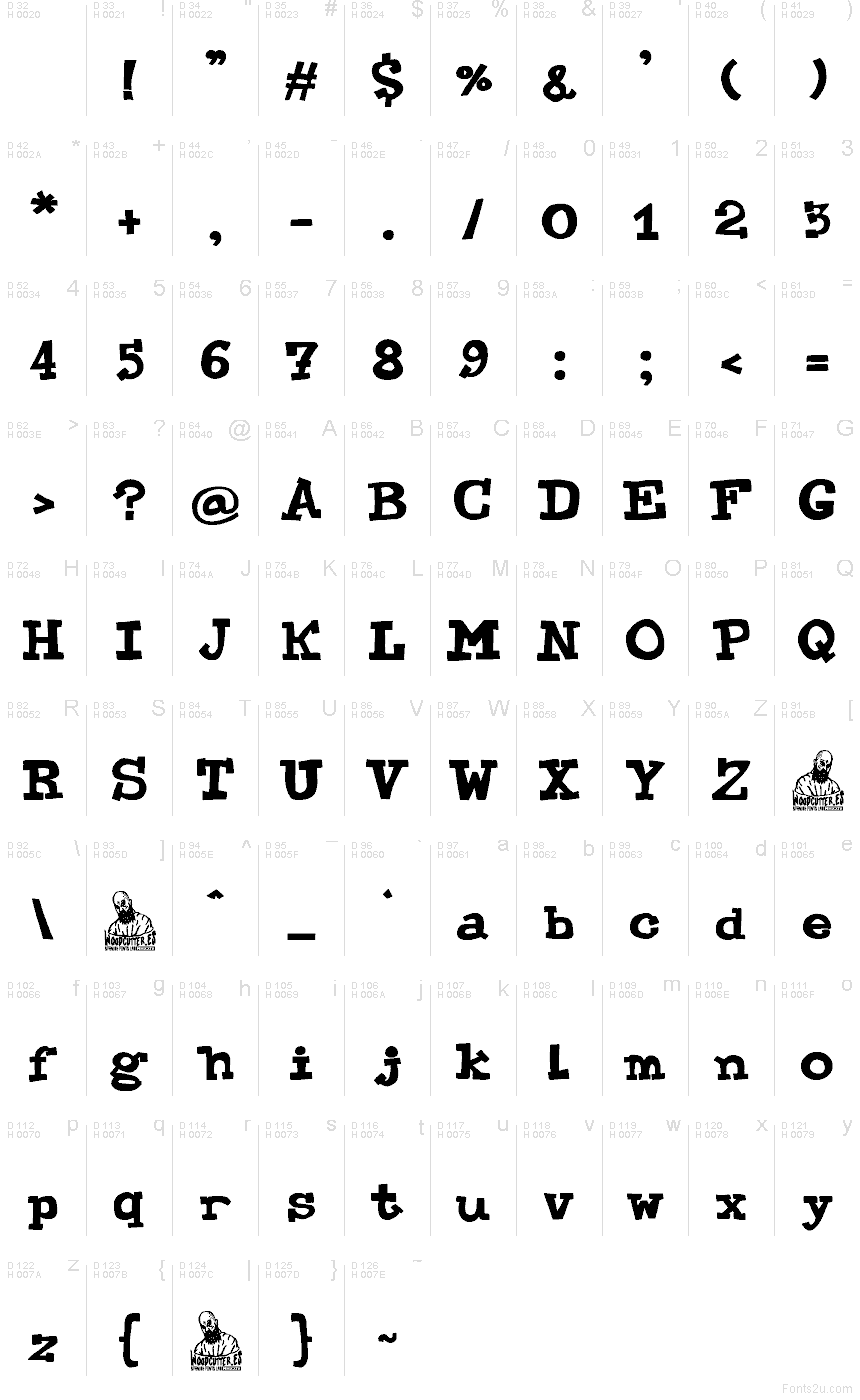
Return to Sender
Return to Sender font by Woodcutter is a free cartoon display typeface with the charm of a hand-stamped postcard. Thick, inky curves wobble just enough to feel human, while the chunky serifs and snug spacing keep words reading as one bold, friendly block. It has a slightly retro, mailroom vibe—like rubber stamps on kraft paper—so headlines feel tactile, loud, and irresistibly playful.
Using Return to Sender, your titles instantly gain that “printed by hand” energy that grabs attention on kids’ book covers, event posters, party invitations, zines, stickers, and social media graphics. This free font shines on anything that needs a fun, analog twist without becoming chaotic. Pair it with a clean, neutral sans-serif for body copy and let Return to Sender handle the big, shouty moments at larger sizes.